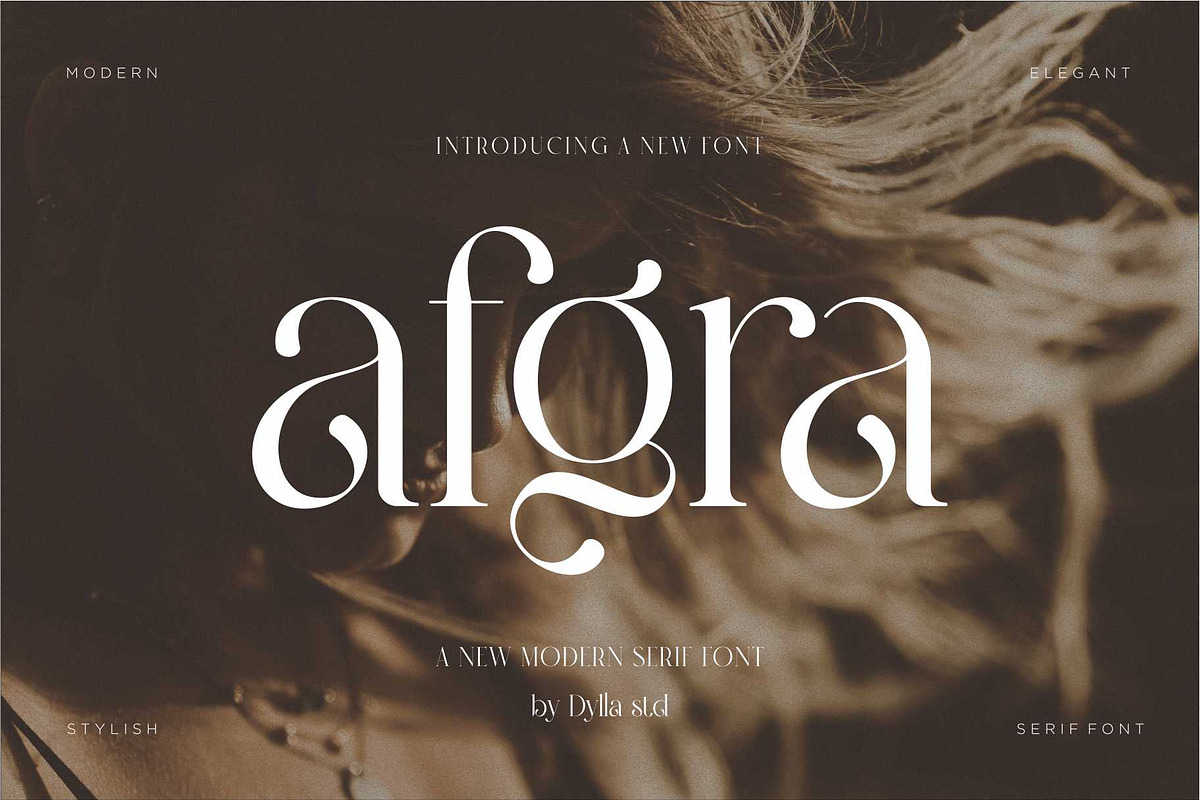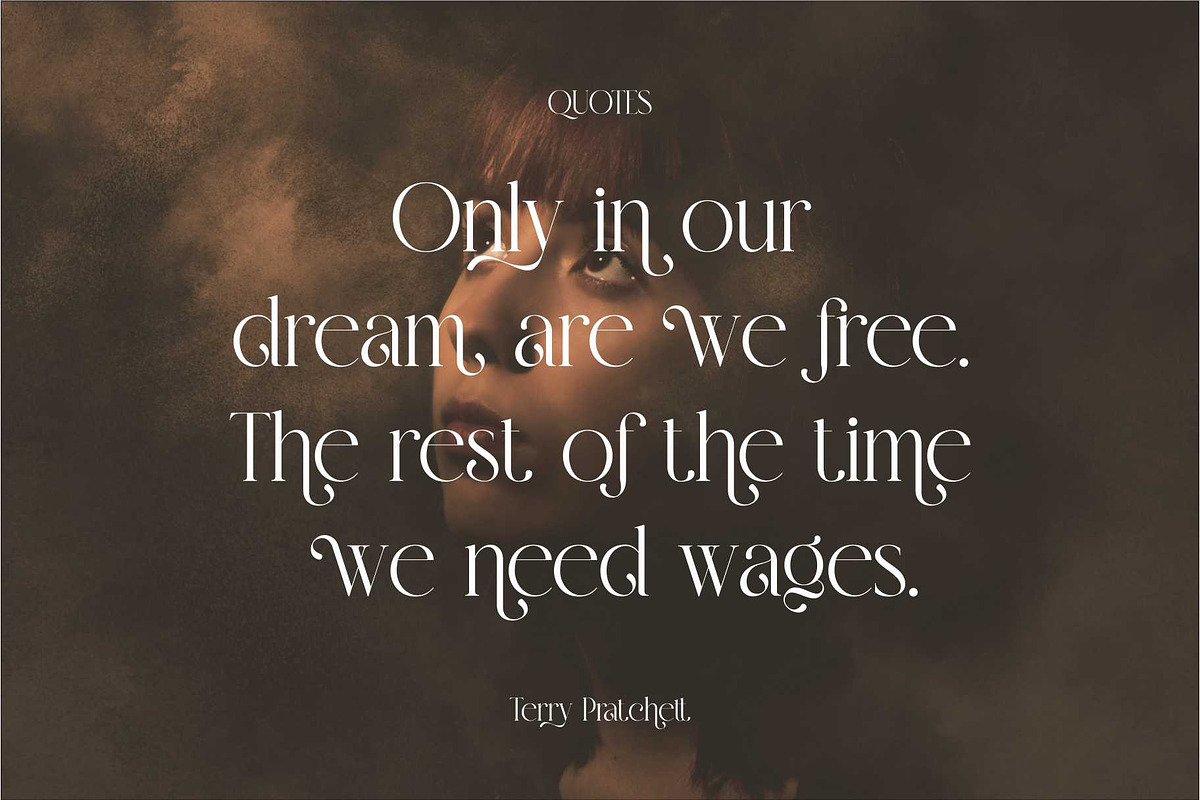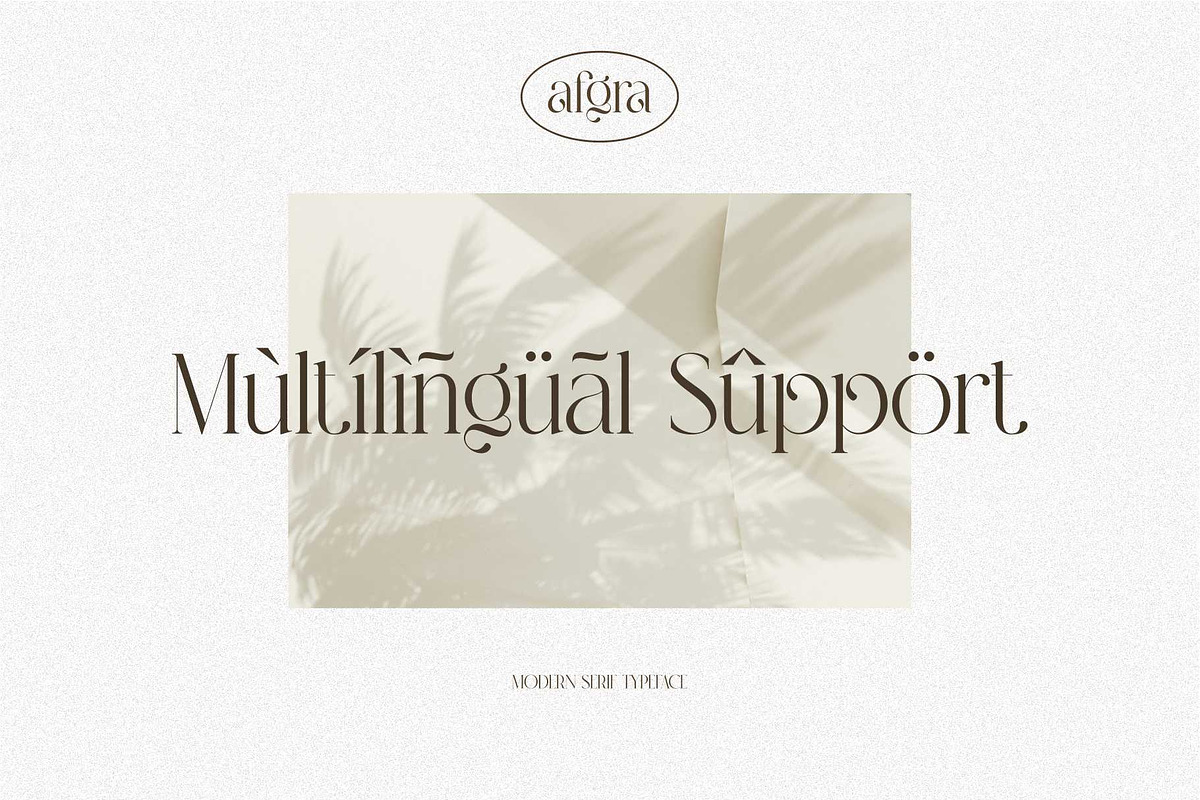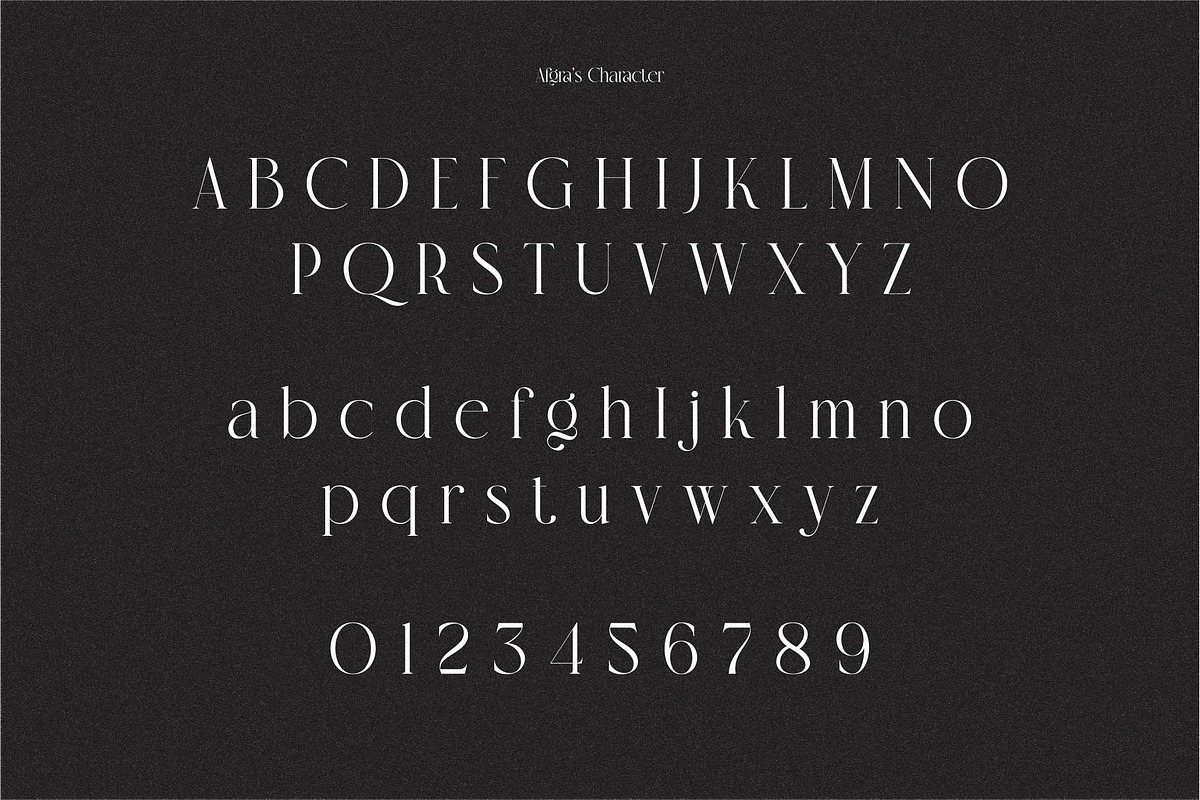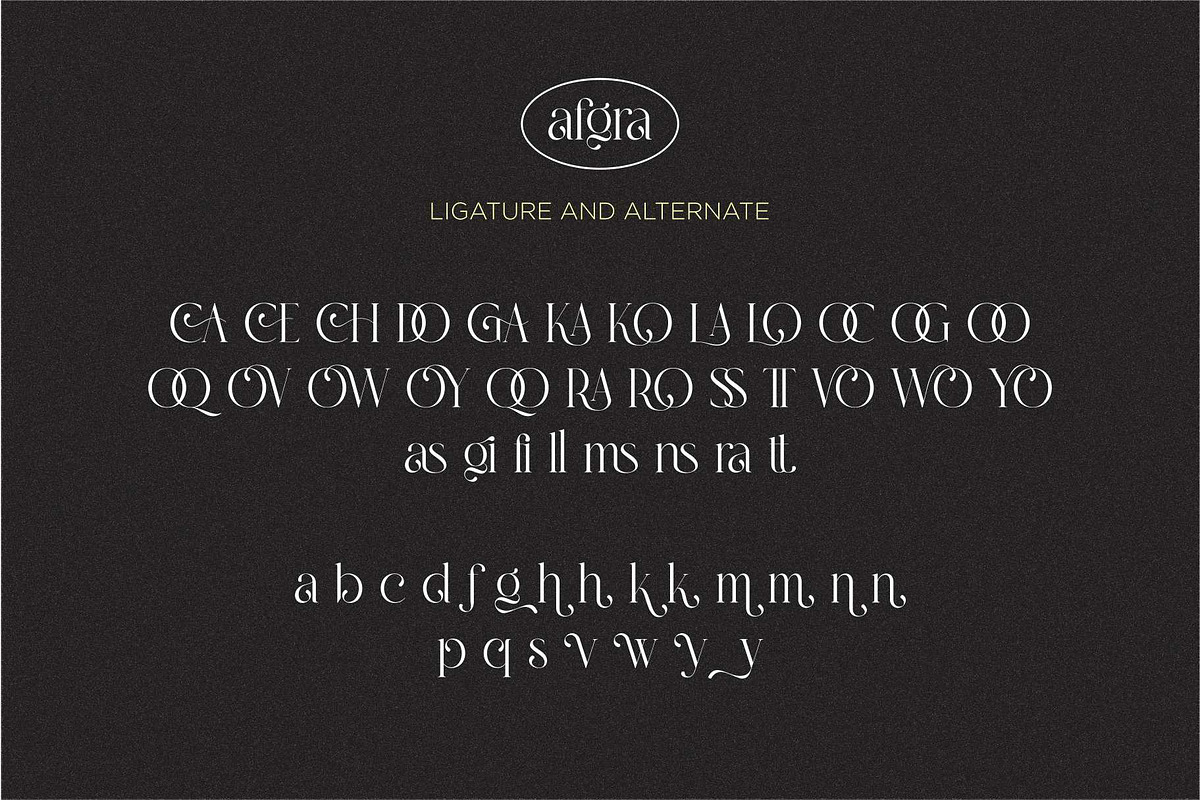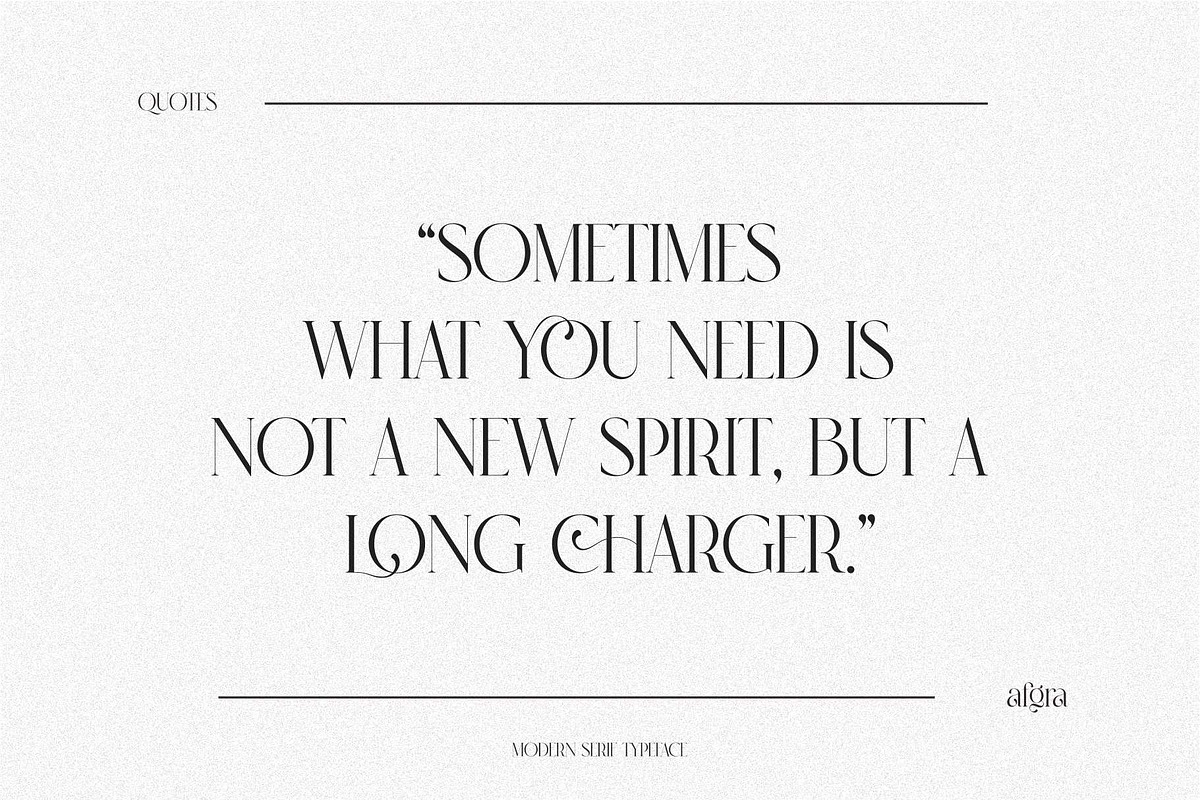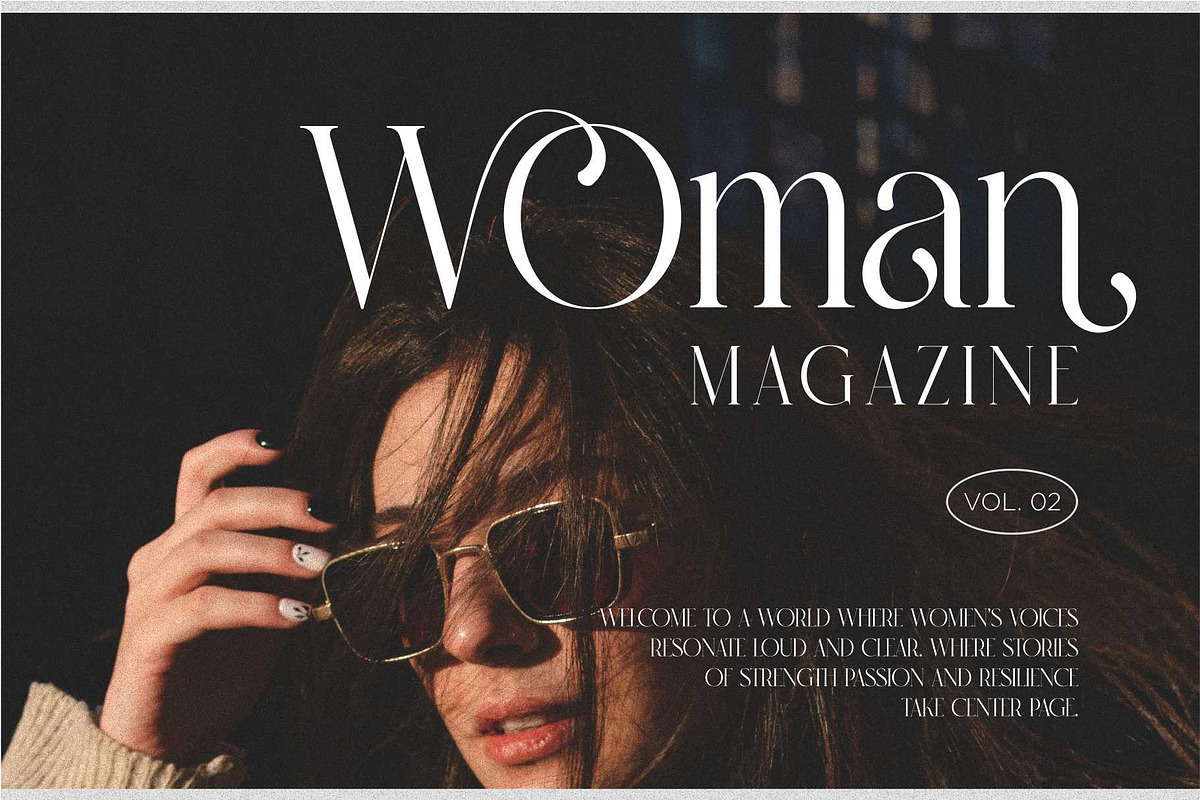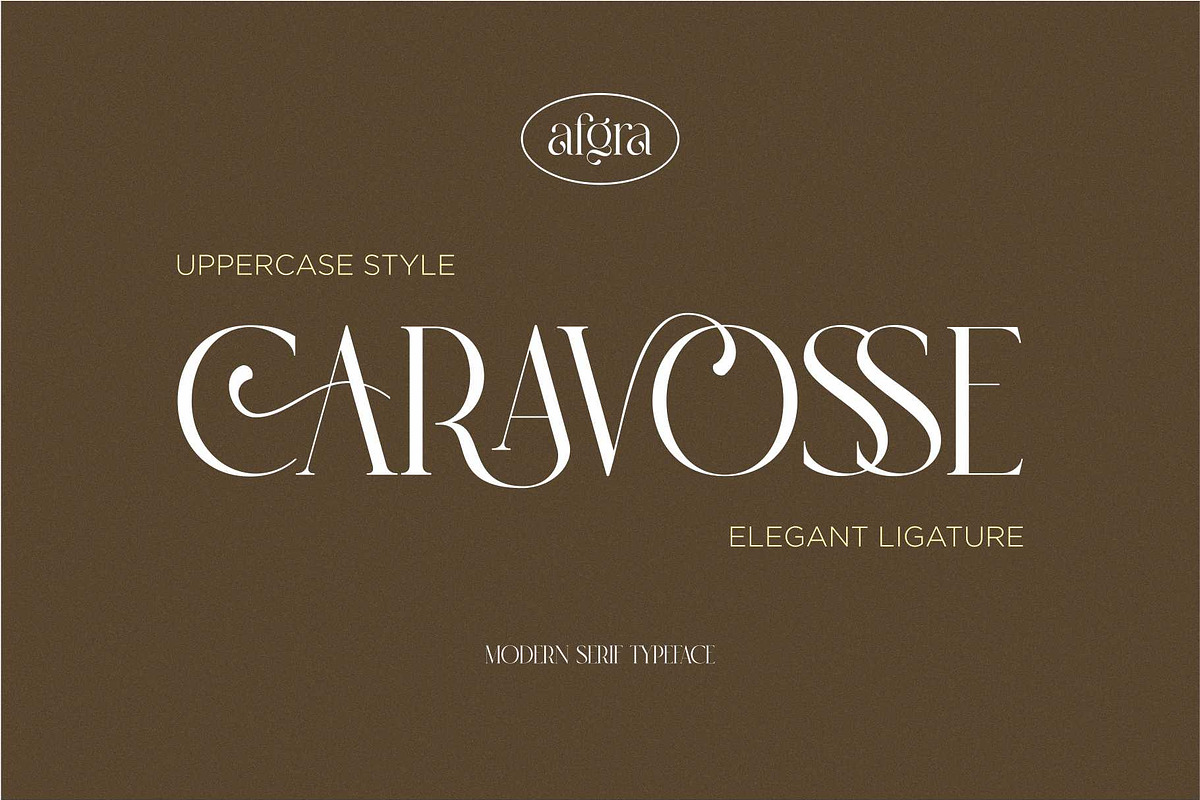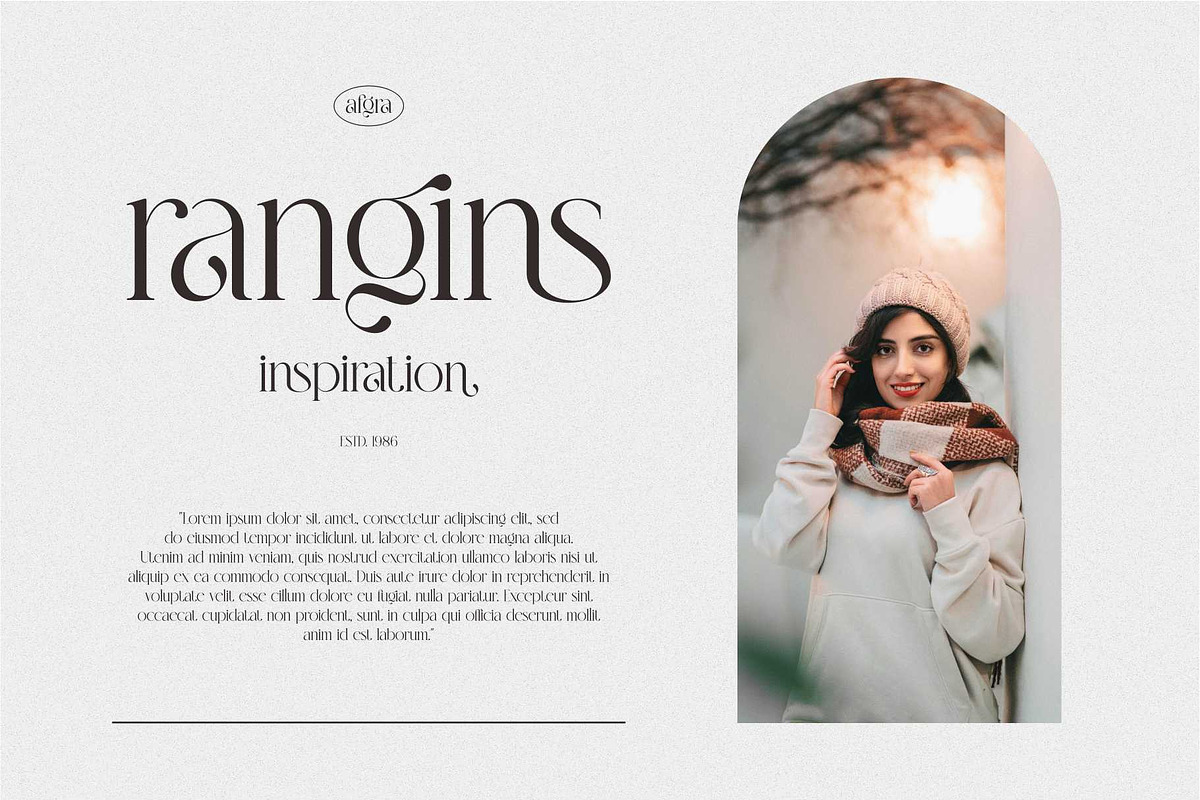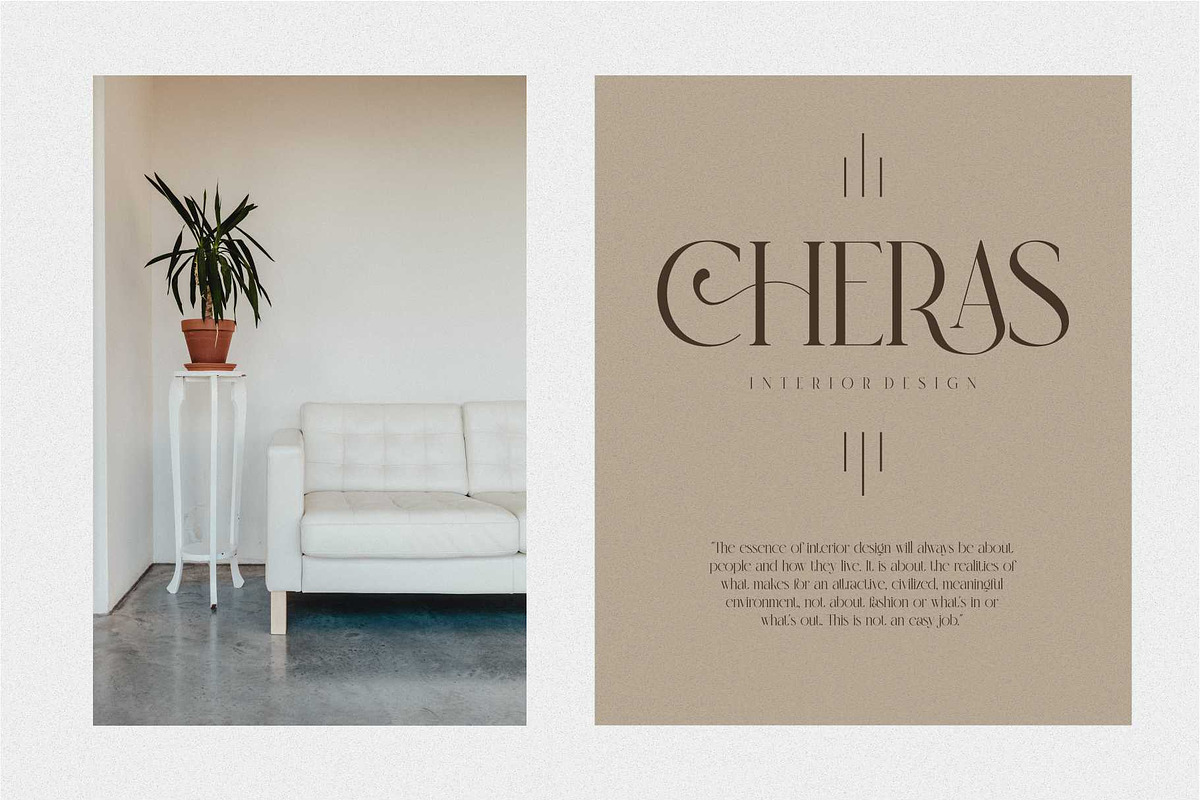
Afgra Modern Serif Typeface
Our new beauty font release – Afgra brings the perfect balance of sophistication and style to any project. With its graceful serif design, this font is made for those who want to add a touch of class and femininity to their work. Featuring unique ligatures and alternates, Afgra lets your creativity flow, giving you endless possibilities to customize your designs.
Whether you're working on wedding invitations, branding, social media, or editorial layouts, Afgra adds that soft, elegant charm you’ve been searching for. Get Afgra today and let your designs bloom with beauty and style!